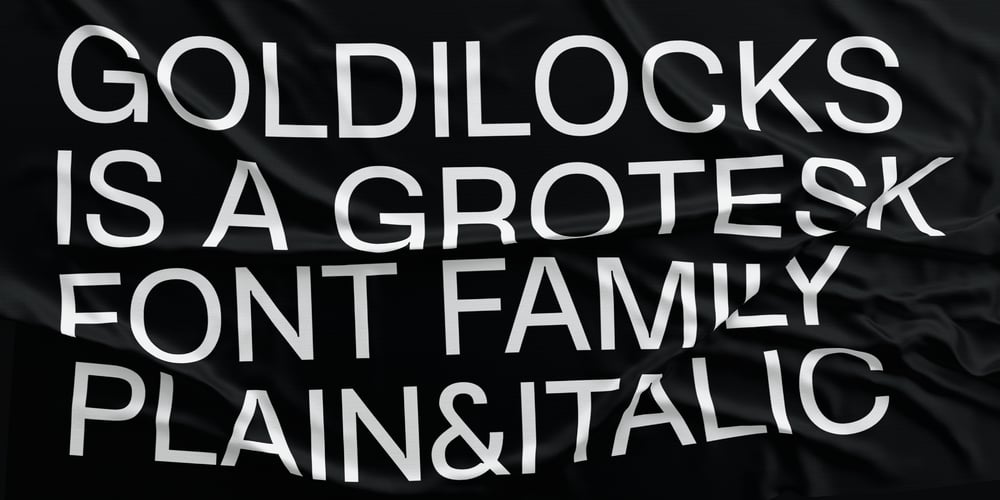
SK Goldilocks Font Family was designed by Salih Kizilkaya and published by Salih Kizilkaya. SK Goldilocks contains 14 styles and family package options. SK Goldilocks is a grotesque font family. It is designed to meet all your typographic needs in your daily and professional life. You can use it in many areas from the title to the body texts, as well as in media such as logos, posters and packaging.SK Goldilocks takes its name from the “Goldilocks Zone” given to the habitable zone of the solar system and aims to open a new field in design for you.Thanks to the 14 different fonts and 6720 glyphs it contains, it contains many typographic materials that you will need. In this way, you can easily use it in your designs or in your daily life.You can visit my Behance account to examine the project images in more detail.